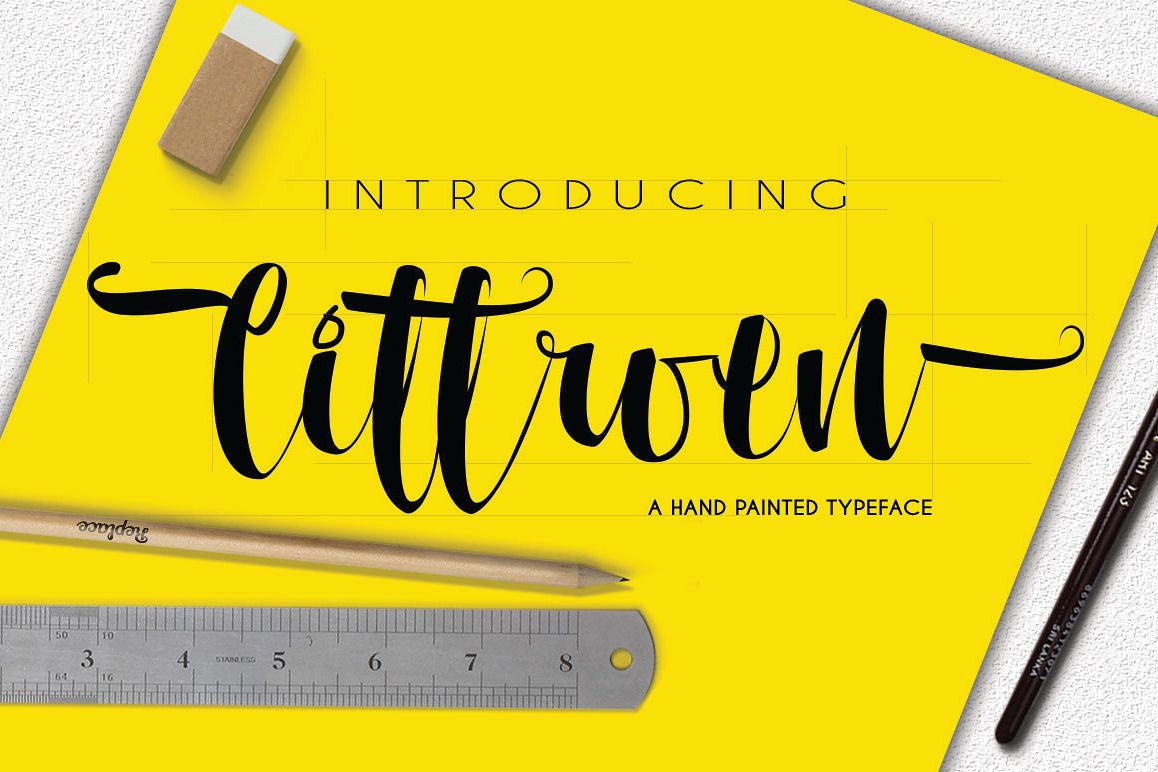
Cittroen Typeface
Cittroen-Regular
Cittroen is an awesome Handwriting typeface. Suitable for wedding invitations, greeting cards, design of water-based paints, correspondence, and a variety of other purposes.
Number
Punctuations
Ligatures